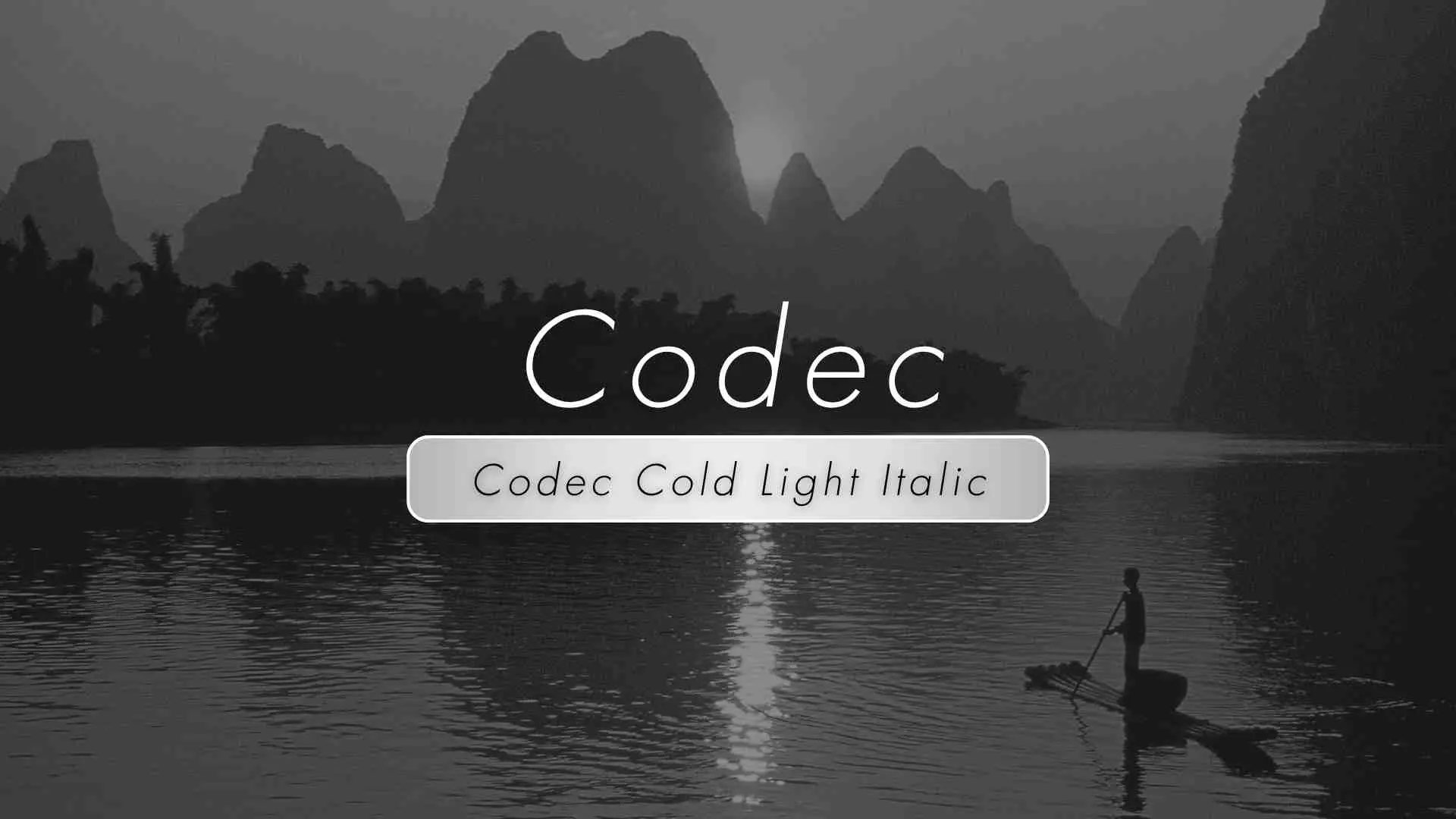
Codec Cold Light Italic
Codec Cold Light Italic Font
The font Codec Cold Light Italic, designed by Cosimo Lorenzo Pancini, falls under the Sans Serif category & Codec font family. Its smooth, flowing letterforms make it a versatile choice for projects that require both elegance and readability. Codec is particularly well-suited for Web Design, Signage, Corporate Branding, Editorial Design, UI/UX Design, Identity and wayfinding. With its balance of simplicity and decorative appeal, this font brings a polished touch to both personal and professional designs.